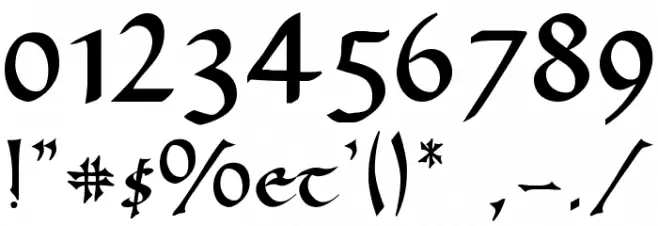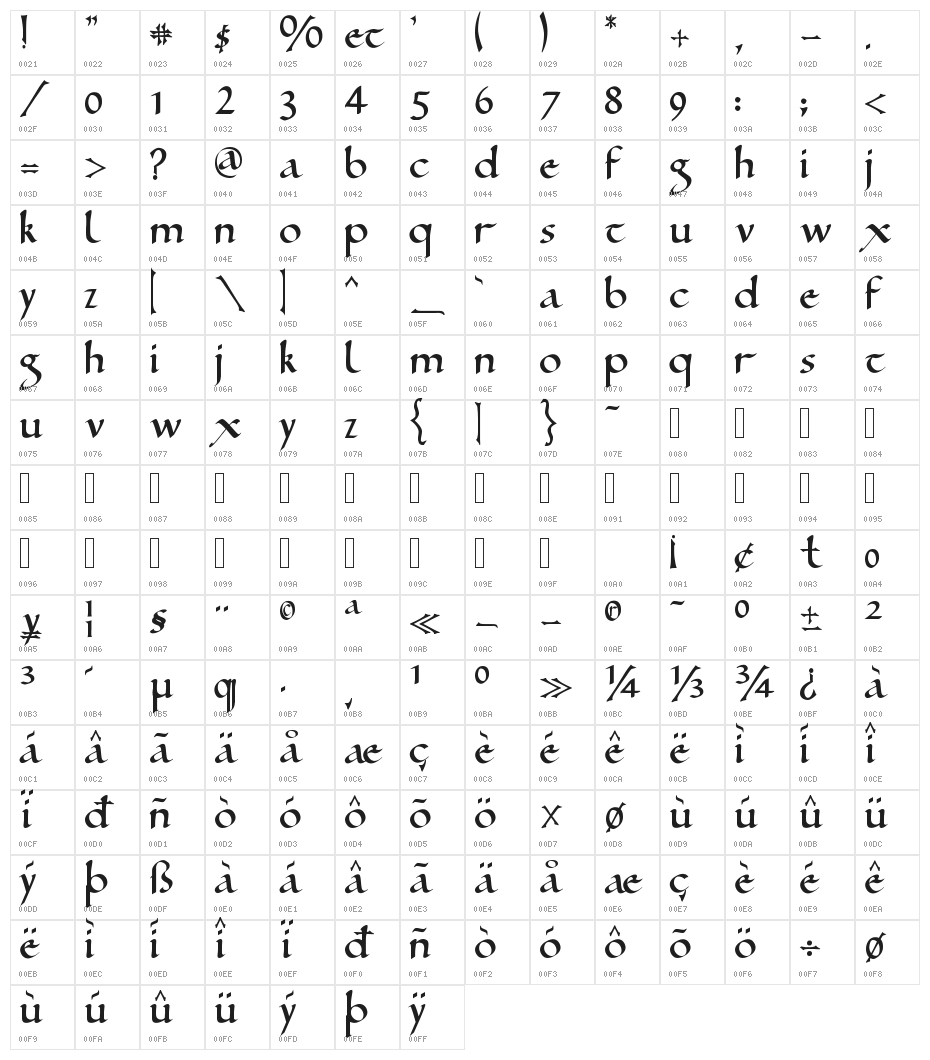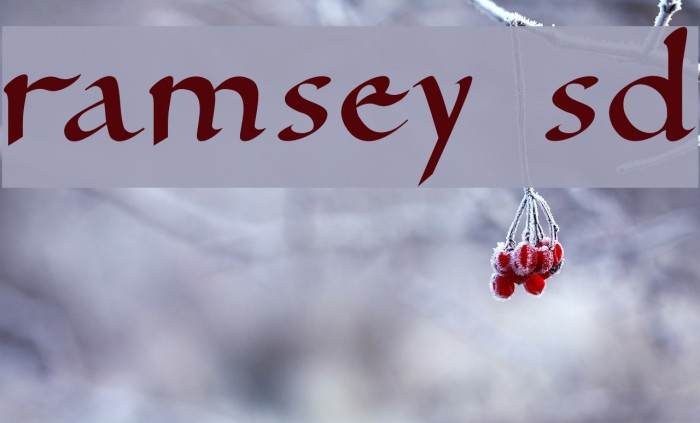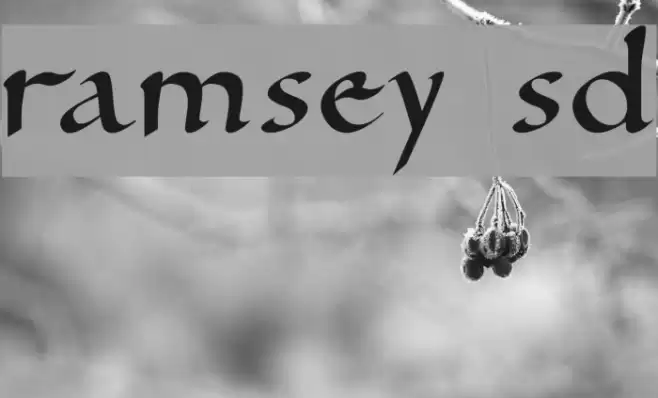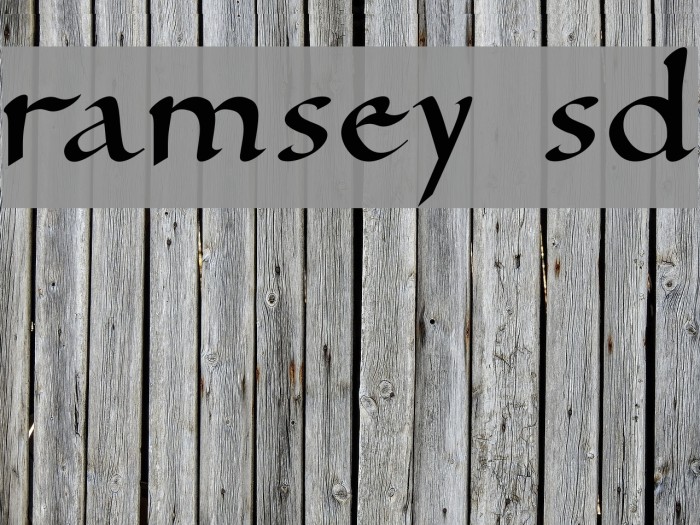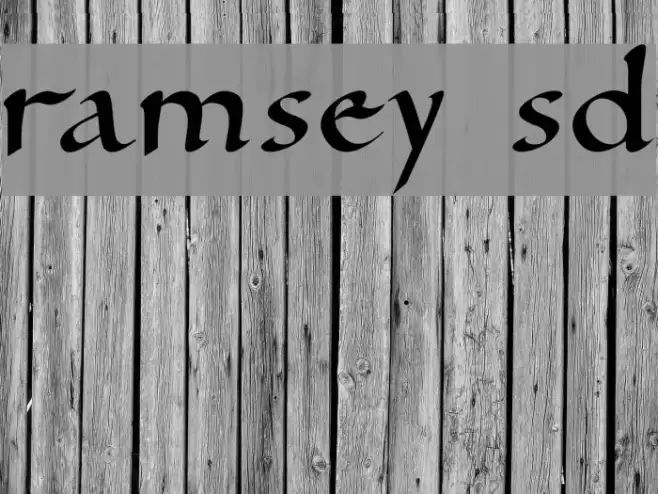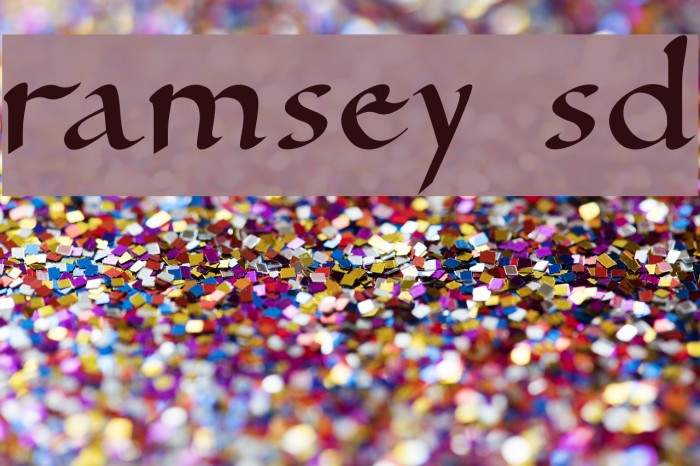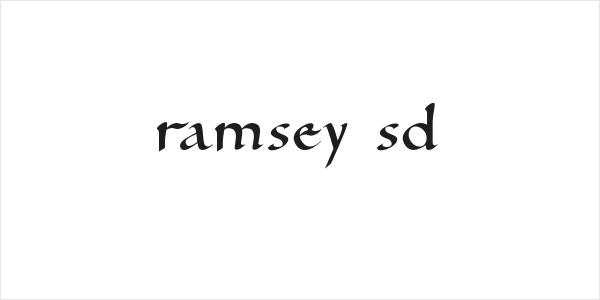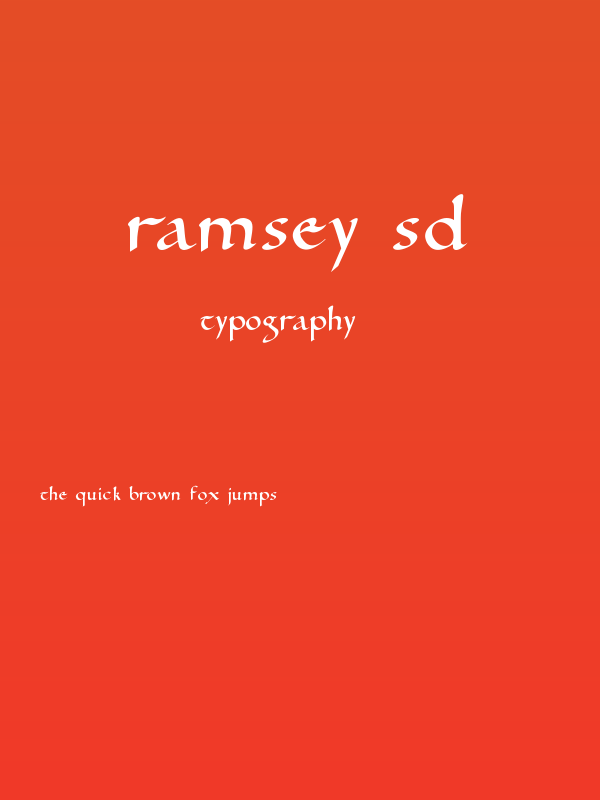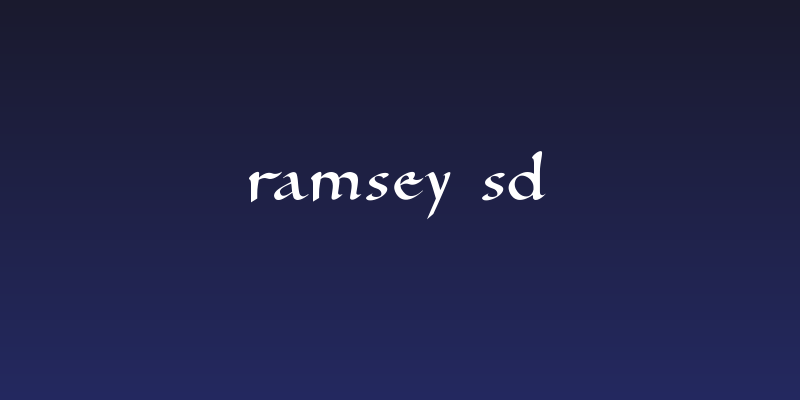
Ramsey SD Font
Ramsey SD Description
This font exhibits a classic and elegant style reminiscent of medieval script. The characters are sharply defined with a distinct calligraphic influence, featuring pointed serifs and a slightly angular form. The uppercase letters are bold and commanding, while the lowercase letters maintain a consistent flow with a touch of sophistication. Numbers are clear and well-proportioned, complementing the overall aesthetic. Special characters are crafted with the same attention to detail, enhancing the font's versatility. The design is suitable for projects that require a historical or formal touch, providing a sense of tradition and refinement.
| Proposed Projects | Ideal for historical documents, formal invitations, book covers, and branding that requires a traditional or elegant touch. |